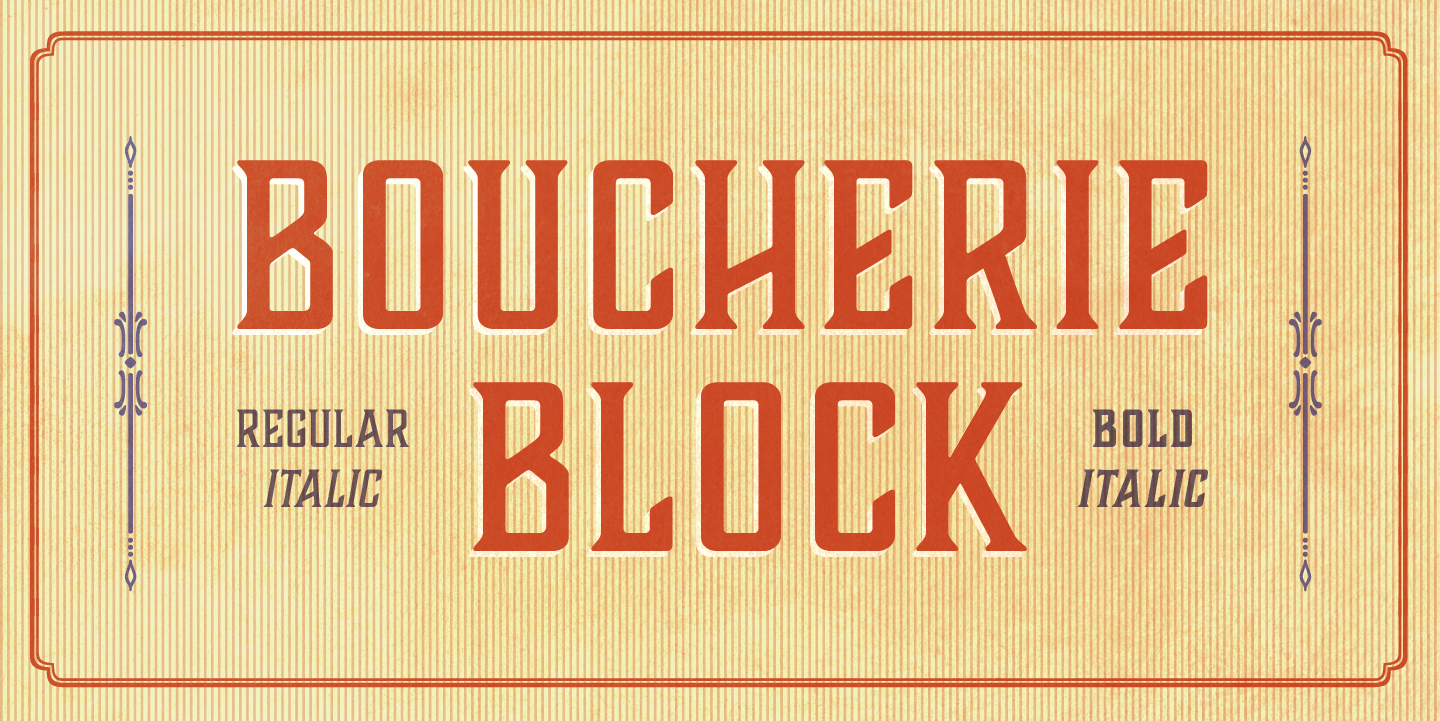
Boucherie Block Bold Font Free Download - Bold, vintage slab serif with a western flair. This font features bold, blocky. Use boucherie to create typographic compositions that are at once fresh and.
This font features bold, blocky. Bold, vintage slab serif with a western flair. Use boucherie to create typographic compositions that are at once fresh and.
Use boucherie to create typographic compositions that are at once fresh and. Bold, vintage slab serif with a western flair. This font features bold, blocky.
This font features bold, blocky. Use boucherie to create typographic compositions that are at once fresh and. Bold, vintage slab serif with a western flair.
Boucherie Block Font
Use boucherie to create typographic compositions that are at once fresh and. Bold, vintage slab serif with a western flair. This font features bold, blocky.
Bold, vintage slab serif with a western flair. Use boucherie to create typographic compositions that are at once fresh and. This font features bold, blocky.
Bold, vintage slab serif with a western flair. This font features bold, blocky. Use boucherie to create typographic compositions that are at once fresh and.
This font features bold, blocky. Bold, vintage slab serif with a western flair. Use boucherie to create typographic compositions that are at once fresh and.
This font features bold, blocky. Use boucherie to create typographic compositions that are at once fresh and. Bold, vintage slab serif with a western flair.
Bold, Vintage Slab Serif With A Western Flair.
Use boucherie to create typographic compositions that are at once fresh and. This font features bold, blocky.